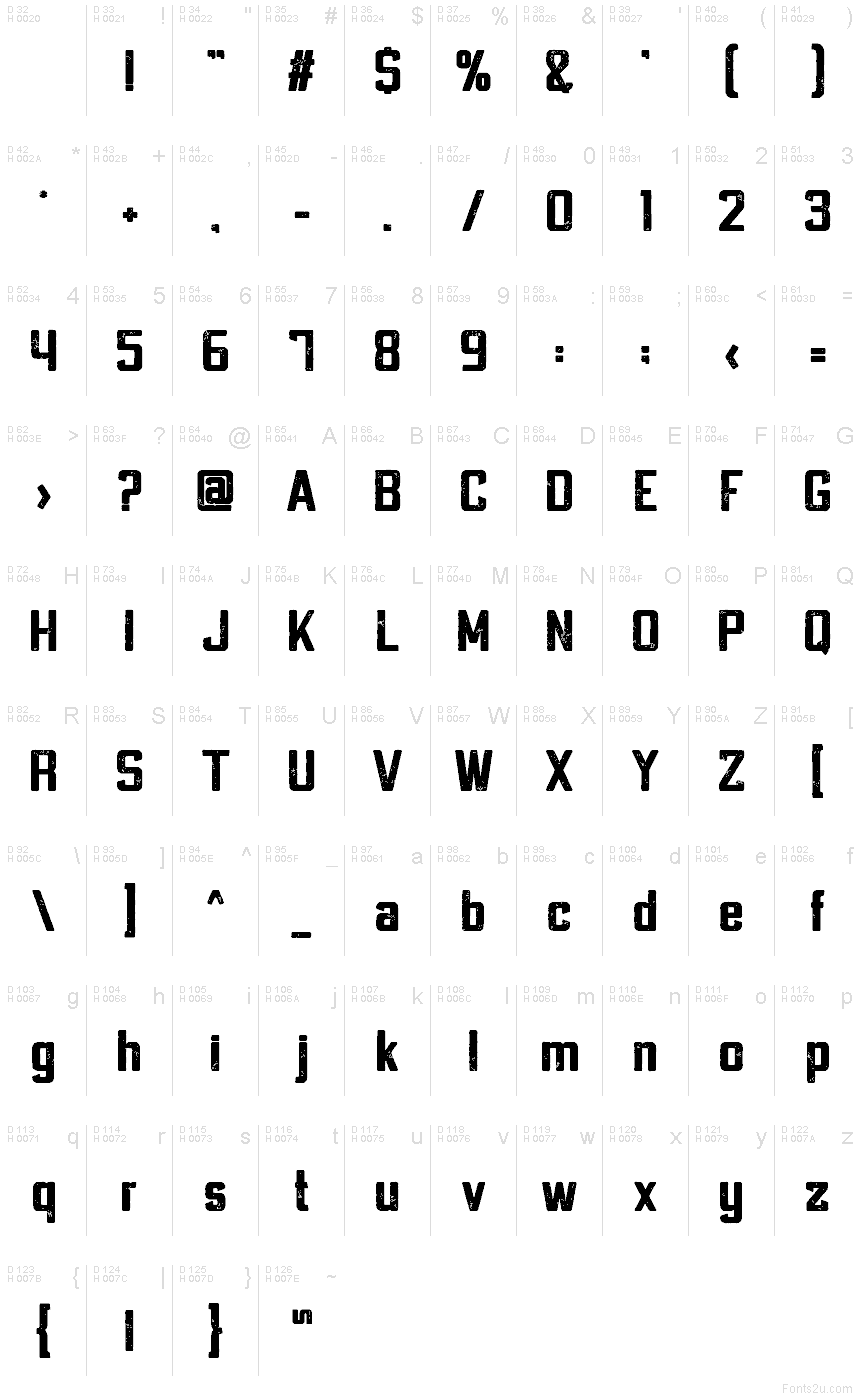
Molard Two Bold
Molard Two Bold font by PutraCetol Studio captures a grunge texture with its eroded appearance. This free display font uses uneven lines and paint splattering to give off a distressed appearance and an industrial vibe. It leaves an overall urban-like aesthetic that has some rugged feel and vintage influence.